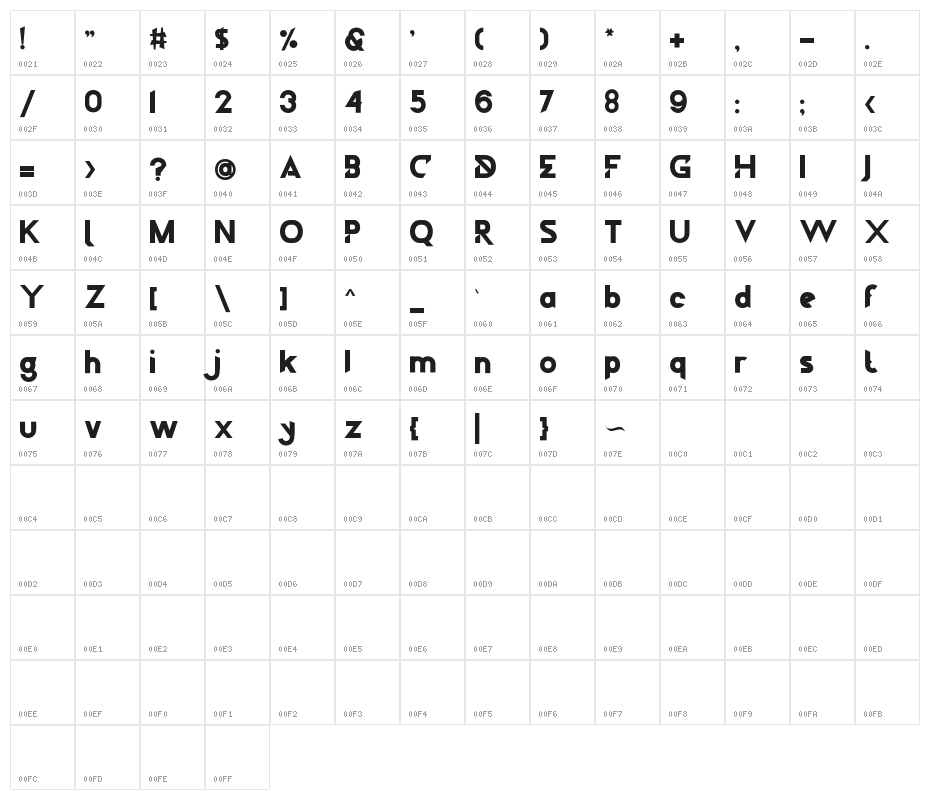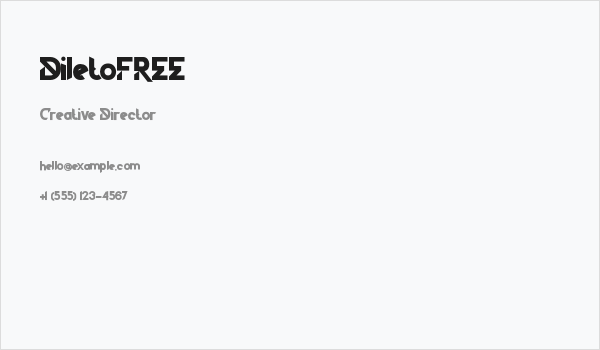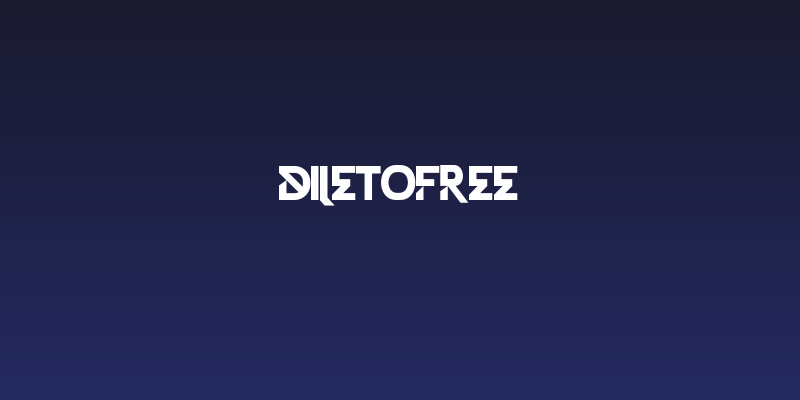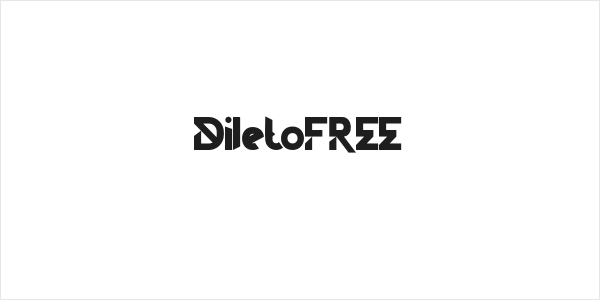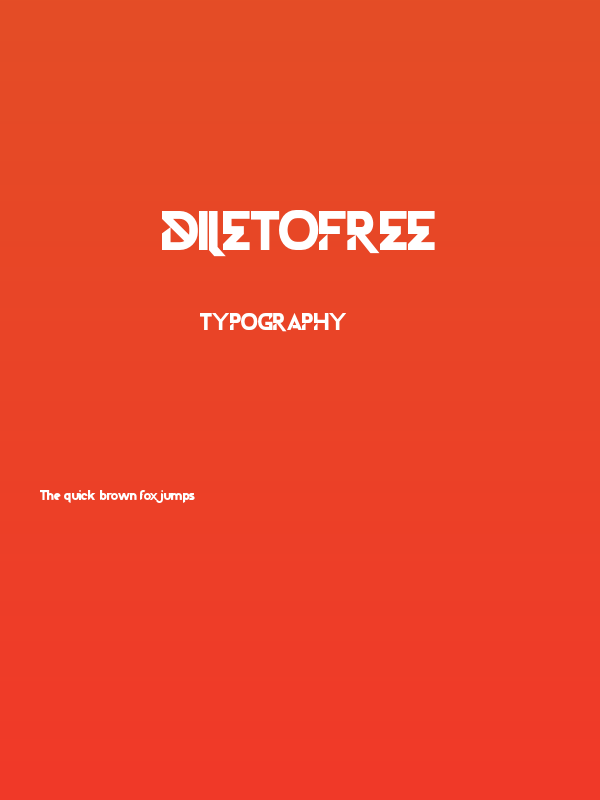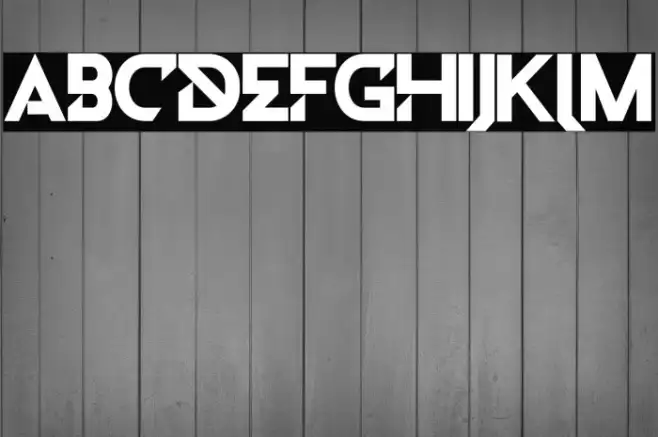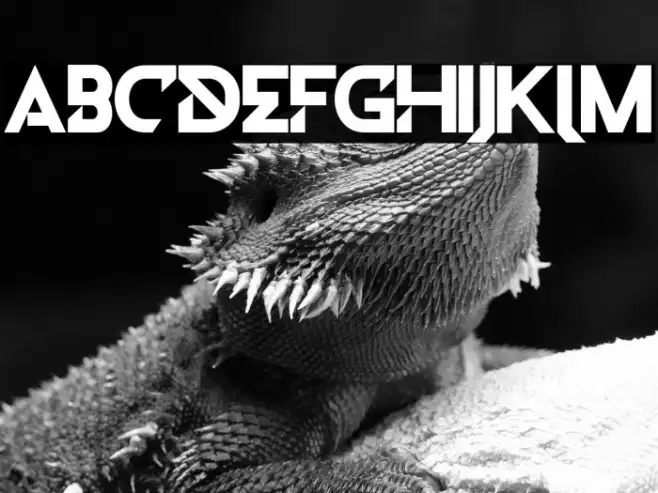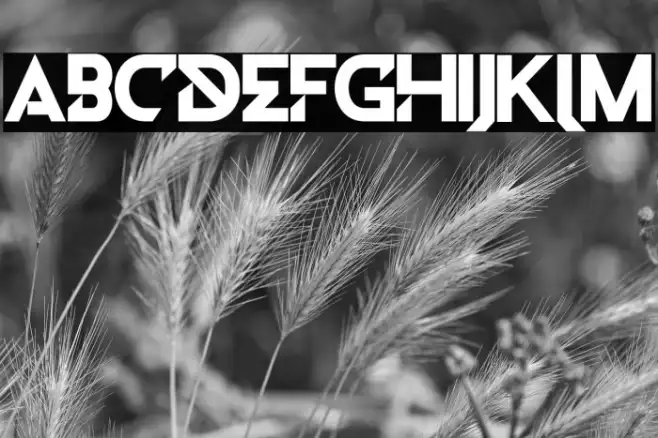
DiletoFREE Font
DiletoFREE Description
This font features a bold and geometric design with sharp angles and clean lines. The uppercase letters are particularly striking, with unique cutouts and angular shapes that give them a futuristic and dynamic appearance. The lowercase letters maintain a more rounded form, providing a nice contrast to the sharpness of the uppercase. The numerals are consistent with the overall style, offering a modern and cohesive look. Special characters are designed with the same attention to detail, ensuring they fit seamlessly with the rest of the typeface. This font is ideal for projects that require a strong visual impact and a contemporary feel.
| Proposed Projects | Ideal for branding, posters, headlines, and any design needing a futuristic touch. |